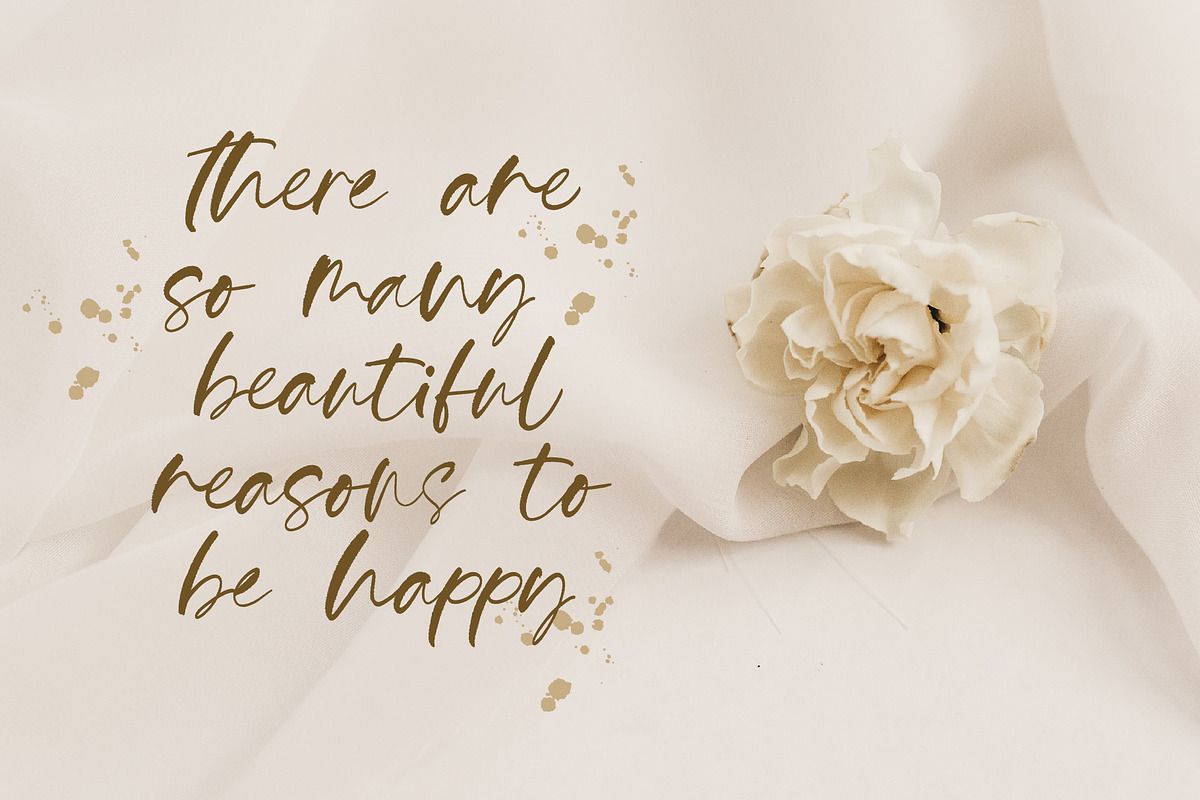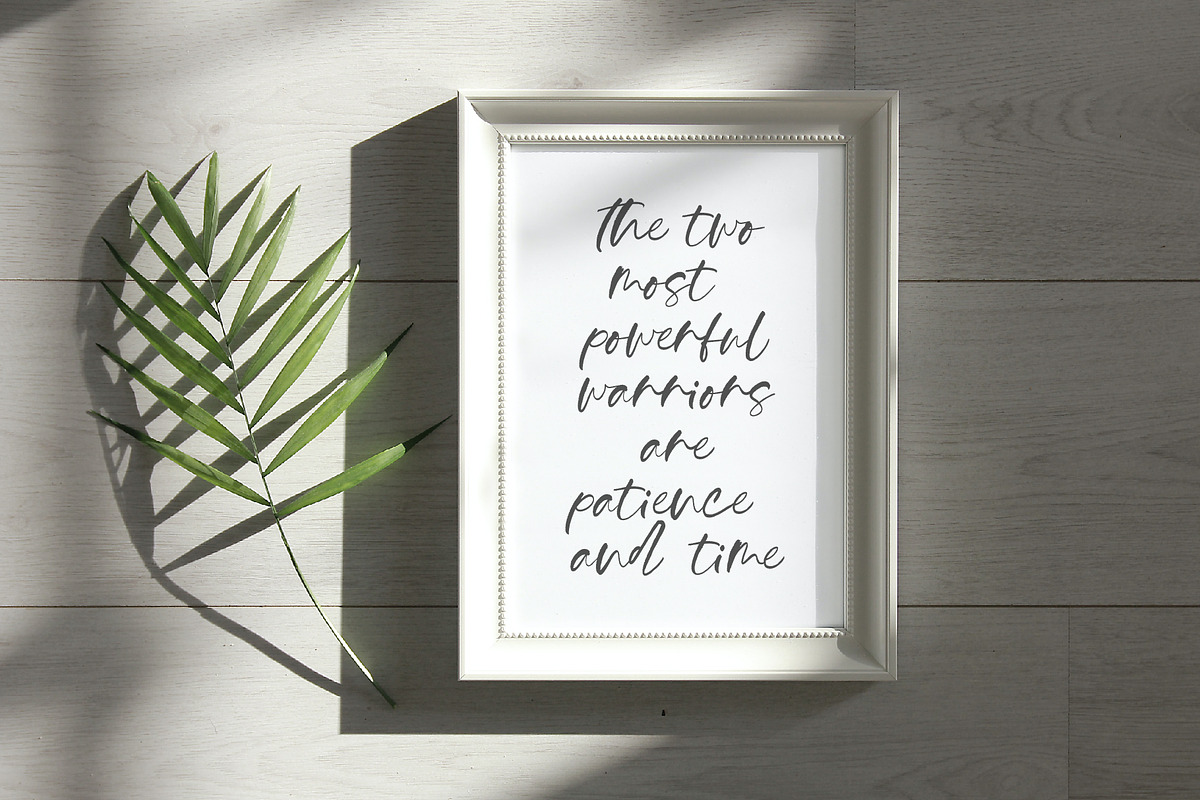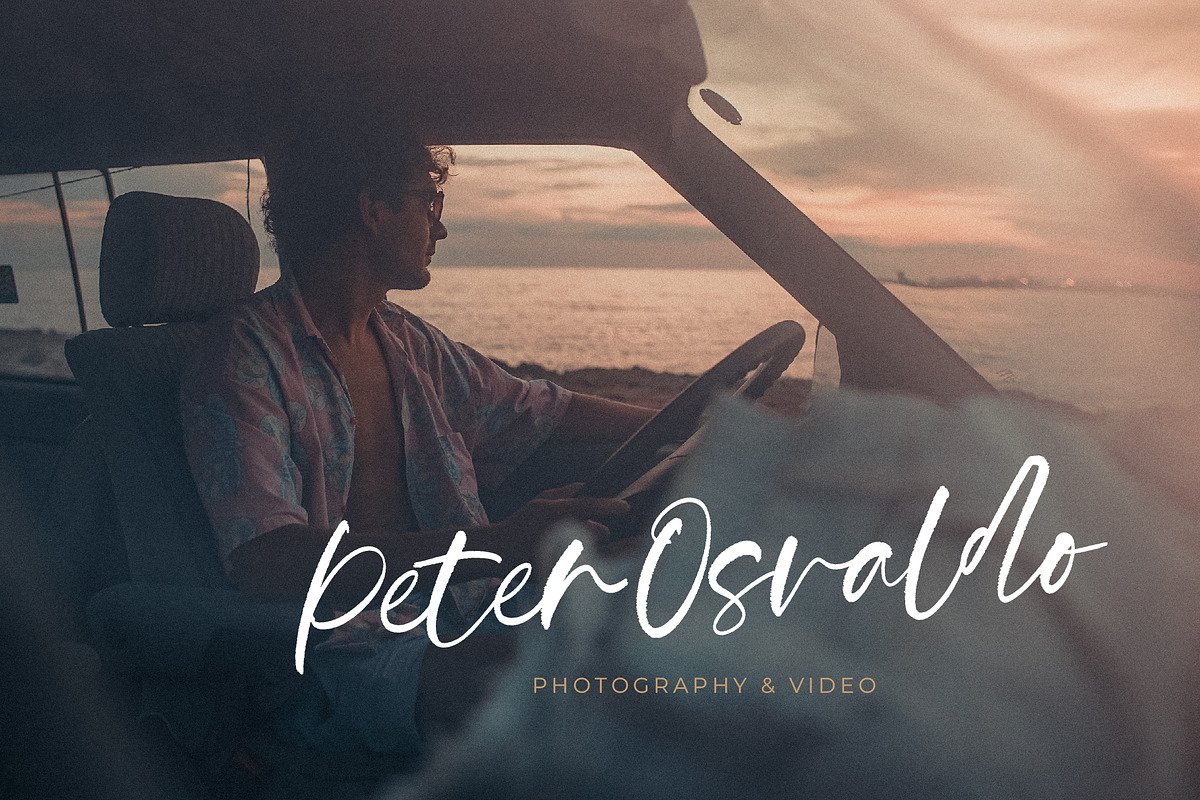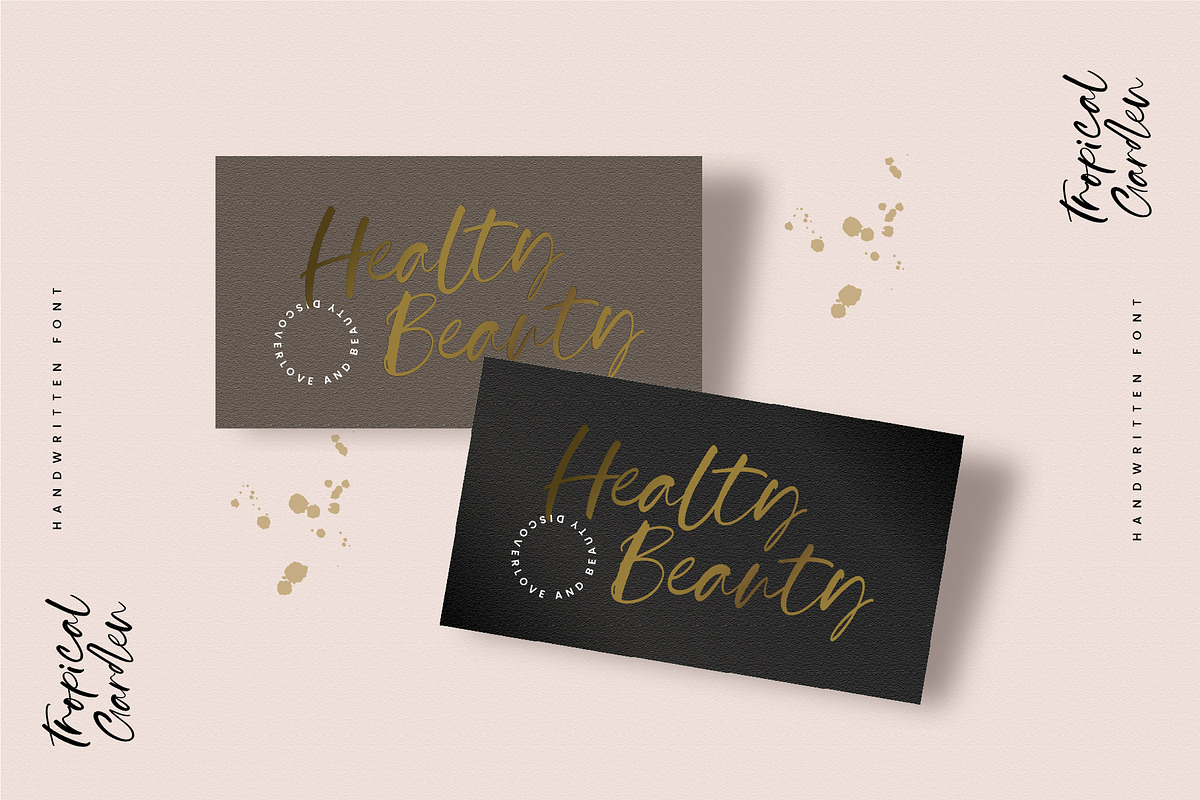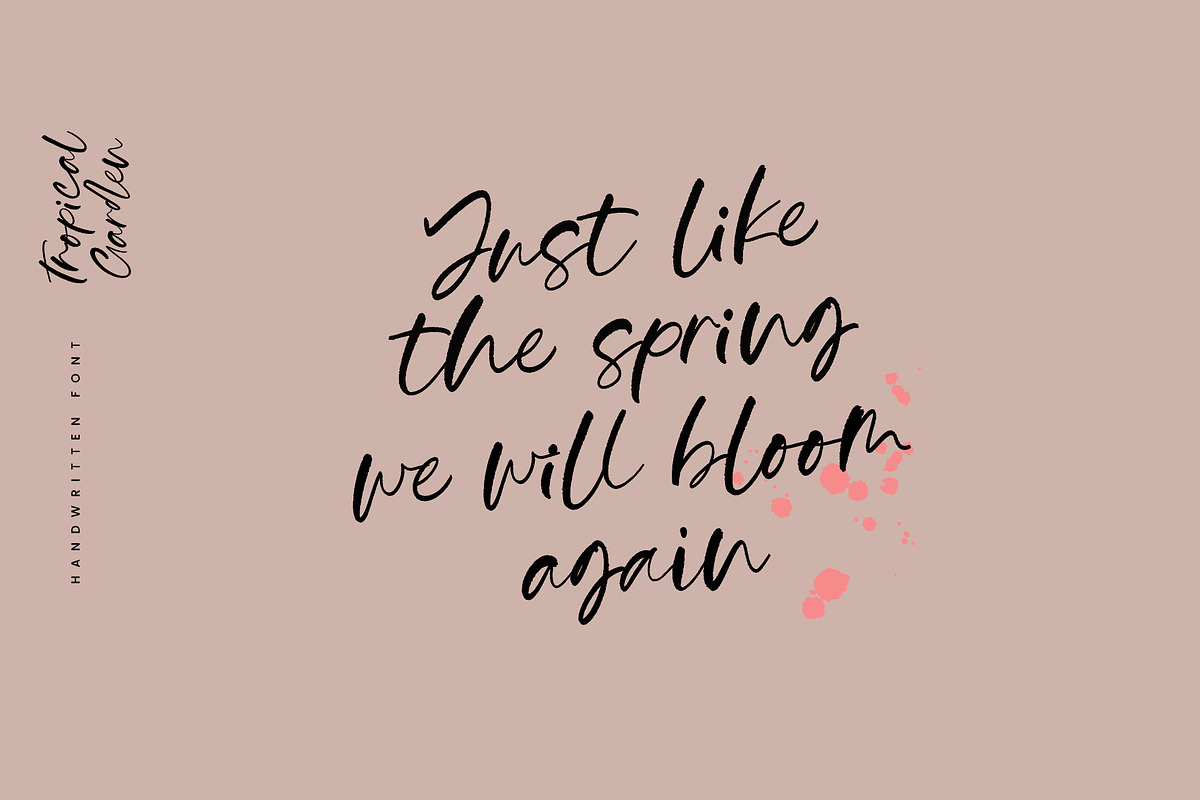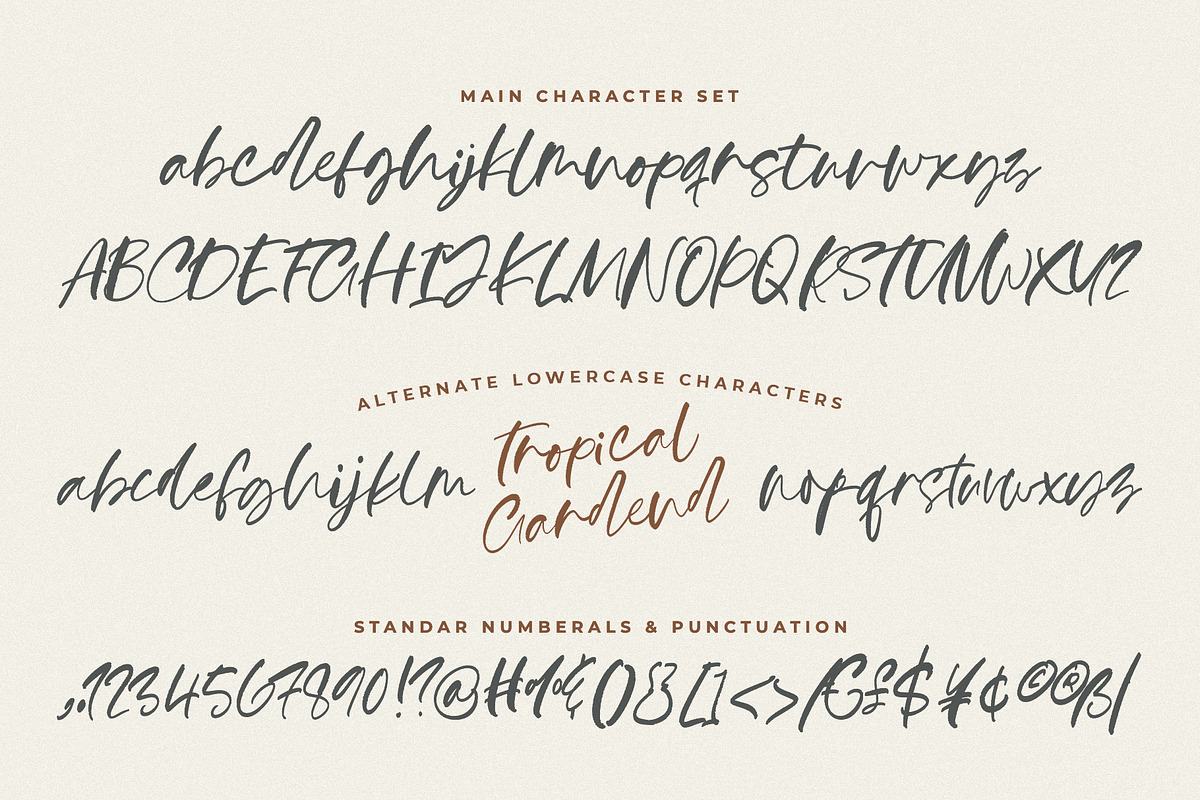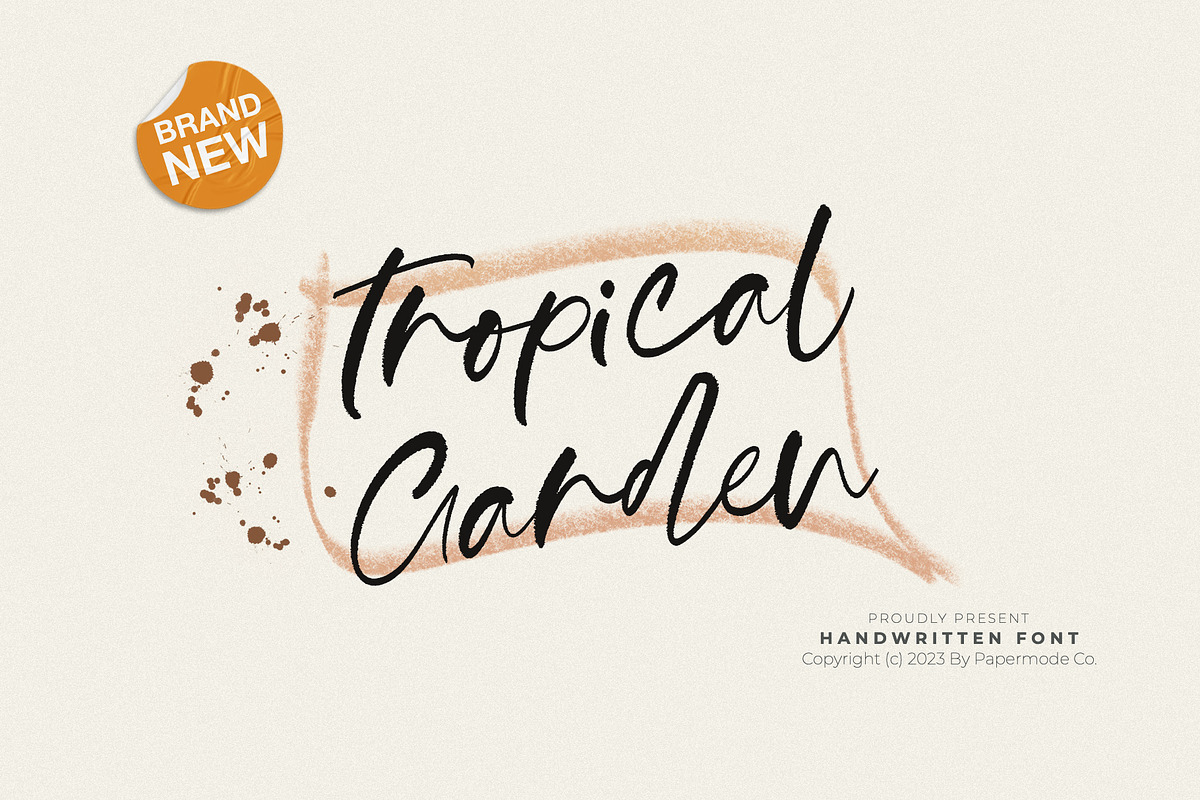
Tropical Garden
Tropical Garden is an organic handwritten font inspired by natural brush typography. Written with a relaxed movement using a slightly dry brush pen. This will give you a fresh and elegant design. Tropical Garden comes with a set of upper and lower case letters, numbers, alternative styles for some lower case characters are also available which makes your texts and designs more attractive.